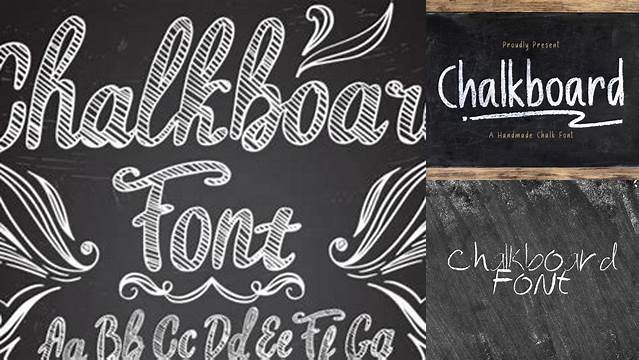
Chalkboard Font: Free Download For Your Projects
Hey guys! Are you looking to add a touch of classroom nostalgia or a handmade feel to your designs? Then you've come to the right place! Chalkboard fonts are super versatile and can bring a unique charm to all sorts of projects, from posters and invitations to websites and branding. In this article, we're diving deep into the world of chalkboard fonts, exploring everything from what makes them special to where you can find some fantastic free options. So, grab your virtual chalk, and let's get started!
What is a Chalkboard Font?
Okay, so what exactly is a chalkboard font? Well, think about those classic chalkboards we all remember from school. A chalkboard font essentially mimics the handwritten, slightly textured look of chalk on a board. They often have a bit of a rough edge, a slightly uneven stroke, and a casual, friendly vibe. This makes them perfect for projects where you want to convey a sense of authenticity, fun, or informality. Chalkboard fonts are more than just a typeface; they are a design element that evokes memories of learning and creativity. The unique texture and imperfect lines of these fonts add a human touch to digital designs, making them feel more approachable and less sterile. The best chalkboard fonts capture the essence of traditional chalk lettering, providing designers with a versatile tool for various applications. When choosing a chalkboard font, it's essential to consider the specific needs of your project. Some chalkboard fonts are designed to be clean and legible, making them suitable for body text, while others are more decorative and best used for headlines or titles. Understanding these nuances can help you select the perfect font to enhance your message and overall design. The versatility of chalkboard fonts extends to their compatibility with different design styles. Whether you're working on a vintage-inspired project, a modern website, or a playful invitation, a chalkboard font can often fit seamlessly into the design. This adaptability is one of the reasons why chalkboard fonts have remained popular among designers and creatives across various fields. They offer a unique way to add personality and a touch of nostalgia to any project, ensuring your work stands out with its distinctive charm.
Why Use a Chalkboard Font?
So, why would you choose a chalkboard font over any other font out there? Great question! There are tons of reasons, but let's highlight a few key ones. Firstly, as we touched on, they add a personal, handmade touch. In a world of super slick, digital designs, a chalkboard font can help your work stand out and feel more relatable. Secondly, they're excellent for creating a sense of playfulness and informality. If you want your message to feel approachable and friendly, a chalkboard font can be your secret weapon. Lastly, they're incredibly versatile. You can use them for everything from educational materials and restaurant menus to posters and social media graphics. The charm of chalkboard fonts lies in their ability to convey warmth and authenticity, qualities that are often sought after in design. By using a chalkboard font, you can infuse your project with a sense of nostalgia, reminding viewers of simpler times and familiar settings. This can be particularly effective for branding and marketing materials, where creating an emotional connection with the audience is crucial. Moreover, chalkboard fonts can enhance the visual appeal of your designs by adding a tactile quality. The rough edges and textured appearance mimic the look and feel of real chalk on a board, making your text seem more engaging and less artificial. This is especially beneficial for projects that aim to create a handcrafted or artisanal impression. The adaptability of chalkboard fonts is another significant advantage. They can be paired with a wide range of other fonts and design elements, allowing for creative flexibility. Whether you're combining a chalkboard font with a sleek sans-serif for a modern contrast or using it alongside vintage illustrations for a retro feel, the possibilities are endless. Ultimately, the decision to use a chalkboard font comes down to the desired tone and message of your project. If you're looking to add character, personality, and a touch of whimsy, a chalkboard font is an excellent choice that will not disappoint.
Free vs. Premium Chalkboard Fonts
Now, let's talk about the elephant in the room: free versus premium chalkboard fonts. Both have their pros and cons, so it's important to understand the differences. Free chalkboard fonts are fantastic because, well, they're free! This makes them accessible to anyone, regardless of budget. However, free fonts often have limitations. They might not include as many weights or styles, and the character set (the number of letters, symbols, and glyphs) might be limited. Premium chalkboard fonts, on the other hand, usually offer a more comprehensive package. You'll often get multiple weights (like light, regular, bold), different styles (like italic or condensed), and a wider range of characters and symbols. This gives you more flexibility and control over your design. Plus, premium fonts are typically crafted with greater attention to detail and kerning (the spacing between letters), resulting in a more polished and professional look. When considering chalkboard fonts, the choice between free and premium often depends on the scope and requirements of your project. Free fonts can be a great option for personal projects or small-scale designs where budget is a concern. There are many high-quality free chalkboard fonts available, but it's crucial to ensure they meet your specific needs in terms of legibility and aesthetic appeal. Premium chalkboard fonts, while requiring an investment, can provide significant advantages for professional or commercial projects. The expanded character sets, multiple weights and styles, and enhanced kerning can make a noticeable difference in the final product. Additionally, purchasing a premium font often comes with licensing rights that allow for commercial use, which is essential for business-related designs. Another factor to consider is the support and updates provided by the font creator. Premium fonts typically come with better support, ensuring any issues or questions you have are promptly addressed. This can be particularly valuable if you're working on a tight deadline or require specific font customizations. Ultimately, the decision to go with a free or premium chalkboard font should be based on a careful evaluation of your project requirements, budget, and desired level of quality. Both options have their merits, and the right choice will depend on your unique circumstances and design goals.
Where to Find Free Chalkboard Fonts
Tips for Using Chalkboard Fonts Effectively
Using a chalkboard font effectively is about more than just slapping it on your design. You need to think about how it interacts with other elements, the overall tone you're trying to create, and the legibility of your text. Here are a few tips to help you nail it: First, consider contrast. Chalkboard fonts often work best when paired with clean, simple fonts like sans-serifs. This creates a visual contrast that makes both fonts stand out. Second, think about hierarchy. Use your chalkboard font for headings or emphasis, and use a more legible font for body text. This ensures your message is easy to read. Third, don't overuse it! Too much chalkboard font can become overwhelming and detract from your design. Using chalkboard fonts effectively requires a thoughtful approach to typography and design principles. While their unique charm can enhance your projects, it's essential to use them strategically to avoid overwhelming your audience. One of the most important tips is to ensure legibility. Chalkboard fonts, with their textured and sometimes irregular lines, can be challenging to read if used in small sizes or long paragraphs. For body text, opt for a cleaner and more straightforward font, reserving the chalkboard font for headings, titles, or short bursts of text where its distinctive style can shine without compromising readability. Contrast is another critical factor to consider. Pairing a chalkboard font with a sleek sans-serif or a classic serif font can create a visually appealing and balanced design. This juxtaposition highlights the unique character of the chalkboard font while ensuring the overall composition remains harmonious. Experiment with different font pairings to find the combination that best suits your project's aesthetic. Hierarchy plays a crucial role in effective chalkboard font usage. By using the chalkboard font for primary elements such as headings and subheadings, you can draw attention to key information and create a clear visual structure. This approach helps guide the viewer's eye and ensures that your message is conveyed effectively. However, it's important to avoid using the chalkboard font for every element on the page, as this can lead to visual clutter and dilute its impact. Color choices can also significantly influence how a chalkboard font is perceived. Traditional chalkboard fonts are often white or light-colored on a dark background, mimicking the appearance of chalk on a blackboard. However, you can experiment with different color combinations to achieve various effects. Using a chalkboard font in a bold color can make it stand out, while a more muted palette can create a subtle and sophisticated look. Ultimately, the key to using chalkboard fonts effectively is to balance their distinctive style with the overall design goals of your project. By considering legibility, contrast, hierarchy, and color, you can harness the charm of chalkboard fonts to create visually compelling and engaging designs.
Common Mistakes to Avoid When Using Chalkboard Fonts
Even with the best intentions, it's easy to make mistakes when using chalkboard fonts. One common pitfall is overusing them. As we mentioned earlier, too much chalkboard font can quickly become overwhelming. Another mistake is choosing a font that's too decorative or difficult to read. Remember, legibility is key! Finally, be mindful of your color choices. A light chalkboard font on a dark background is classic, but other combinations might not work as well. Avoiding common mistakes is crucial when working with chalkboard fonts to ensure your designs remain effective and visually appealing. One of the most frequent errors is overusing the font, which can lead to a cluttered and overwhelming aesthetic. While chalkboard fonts add a unique charm, employing them excessively can diminish their impact and make your design appear amateurish. It's best to use chalkboard fonts sparingly, focusing on key elements such as headings, titles, or short phrases where they can truly shine. Another common mistake is selecting a chalkboard font that lacks legibility. Many chalkboard fonts are designed with intricate details and rough textures to mimic the look of chalk on a blackboard, but some can be difficult to read, especially in smaller sizes or longer passages of text. Always prioritize readability by choosing chalkboard fonts that are clear and easy to decipher. Test the font in different sizes and contexts to ensure it remains legible across various applications. Color choices also play a significant role in the effectiveness of chalkboard fonts. The classic combination of white or light-colored text on a dark background is often the most visually appealing and true to the traditional chalkboard aesthetic. However, using other color combinations can be tricky and may not always produce the desired effect. Avoid using chalkboard fonts in colors that are too similar to the background, as this can reduce contrast and make the text difficult to read. Experiment with different color palettes, but always ensure there is sufficient contrast to maintain legibility. Furthermore, font pairing is an essential consideration when working with chalkboard fonts. Combining a chalkboard font with other overly decorative or whimsical fonts can create a busy and disjointed design. It's generally best to pair chalkboard fonts with cleaner, more straightforward fonts such as sans-serifs or simple serifs to create a balanced and harmonious composition. This contrast helps the chalkboard font stand out while ensuring the overall design remains cohesive and professional. Finally, neglecting the font's licensing terms can lead to legal issues. Always check the license agreement of any chalkboard font you download, especially if you plan to use it for commercial purposes. Ensure you have the necessary permissions to use the font in your intended projects to avoid copyright infringements. By being mindful of these common mistakes, you can effectively harness the unique appeal of chalkboard fonts while maintaining a professional and polished design.
Examples of Great Chalkboard Font Usage
Need some inspiration? Let's look at a few examples of great chalkboard font usage. Think about menus in cafes or restaurants that have a hand-drawn, rustic feel. Or posters for school events or community gatherings. Chalkboard fonts are also popular in branding for businesses that want to convey a friendly, approachable image. Seeing real-world examples of how chalkboard fonts can be effectively used can provide valuable inspiration and guidance for your own projects. One common application is in the design of menus for cafes, restaurants, and bars. A chalkboard font can instantly evoke a rustic, hand-drawn feel, creating a welcoming and informal atmosphere. Menus that use chalkboard fonts often feature a clean, uncluttered layout with the font used for headings, specials, and key menu items. This helps to draw attention to important information while maintaining an approachable aesthetic. Chalkboard fonts are also frequently used in posters and flyers for events, particularly those with a community or educational focus. School events, workshops, and local gatherings often benefit from the friendly and approachable nature of chalkboard fonts. The font's casual style can make the event seem more accessible and inviting, encouraging greater participation. In these designs, chalkboard fonts are typically paired with simple graphics and bold colors to create a visually striking and informative poster. Branding is another area where chalkboard fonts can be highly effective. Businesses that want to project a friendly, artisanal, or handcrafted image often incorporate chalkboard fonts into their logos, websites, and marketing materials. This can be particularly effective for small businesses, independent shops, and creative entrepreneurs who want to stand out from larger corporations. The use of a chalkboard font can help convey a sense of authenticity and personal touch, building trust and rapport with customers. Websites that feature chalkboard fonts can also benefit from the added personality and visual interest. A chalkboard font used in headings or as a design element can break up the monotony of a standard webpage and create a more engaging user experience. However, it's important to use chalkboard fonts judiciously on websites to ensure readability and maintain a professional appearance. In addition to these applications, chalkboard fonts can be found in various other design contexts, including invitations, greeting cards, and social media graphics. Their versatility and charm make them a popular choice for designers looking to add a touch of nostalgia or whimsy to their work. By studying successful examples of chalkboard font usage, you can learn how to incorporate them effectively into your own projects and create visually compelling designs.
Top Chalkboard Font Families for Free Download
Alright, let's get down to business! Here are some top chalkboard font families that you can download for free: First up, we have "Chalkboard". It's a classic, clean chalkboard font that's super versatile. Next, there's " школьная доска ". This one has a slightly more whimsical feel. And finally, check out "Sketch Block" for a bolder, more graphic option. These are just a few examples, but they're a great starting point for your search. When compiling a list of top chalkboard font families available for free download, it's essential to highlight options that offer both aesthetic appeal and practical usability. These chalkboard fonts should capture the essence of traditional chalk lettering while providing the flexibility needed for various design projects. One standout choice is the